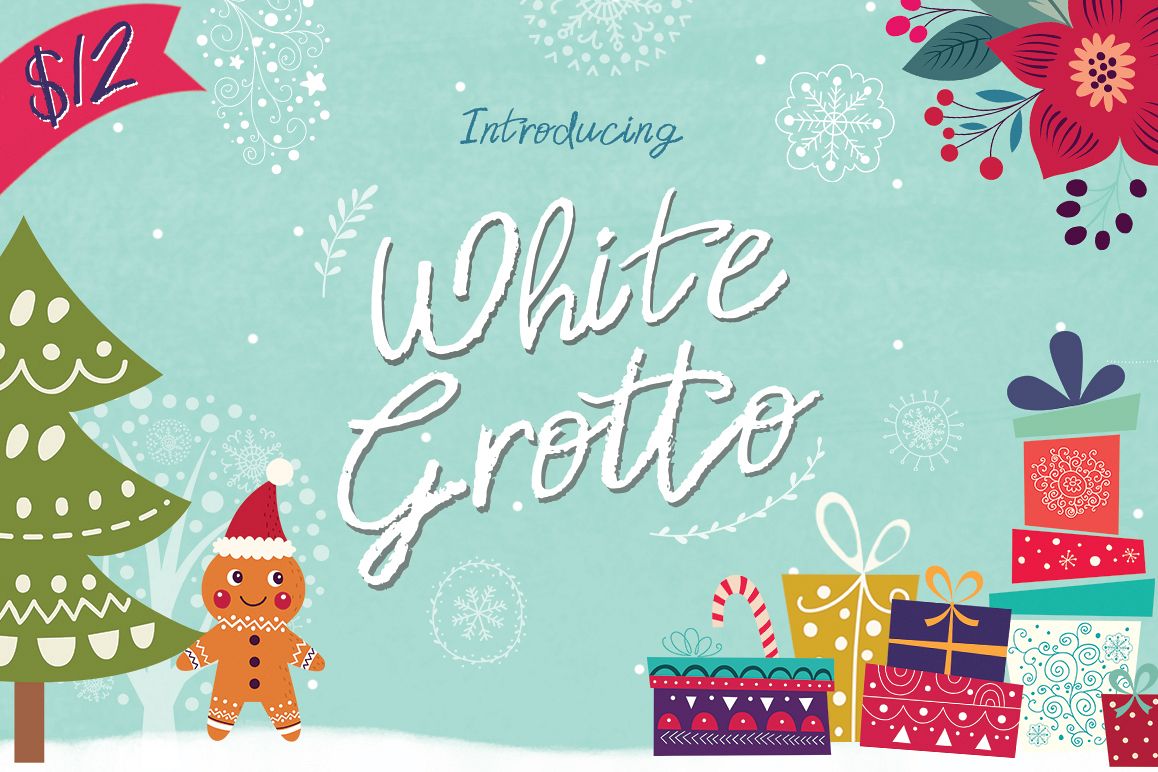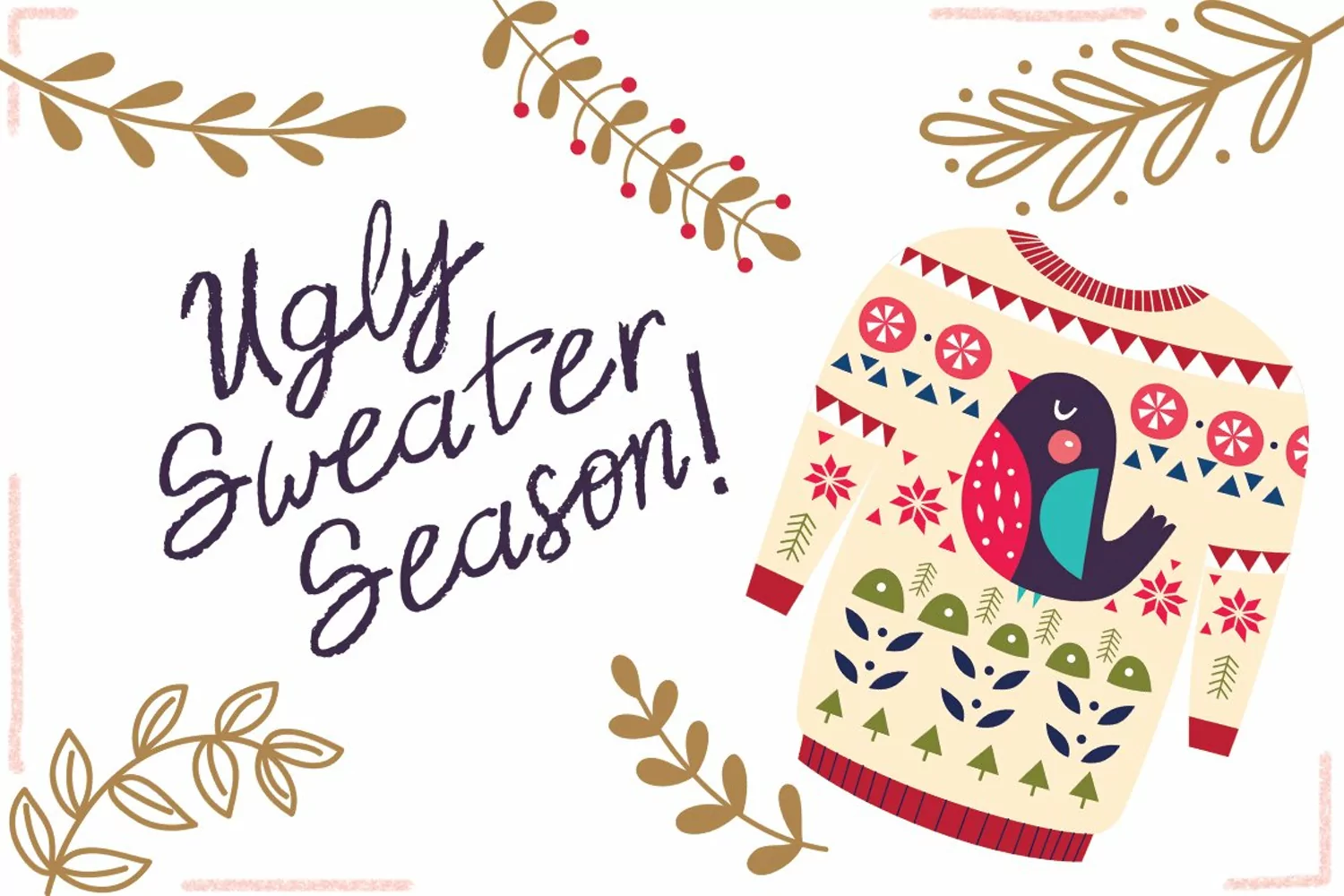
Introducing 'White Grotto'. A fab new font that Santa himself would approve of! It looks like it could be made of real snow! Perfect for all of your holiday designs, including those letters to the jolly man himself! Enjoy!Whats Included: